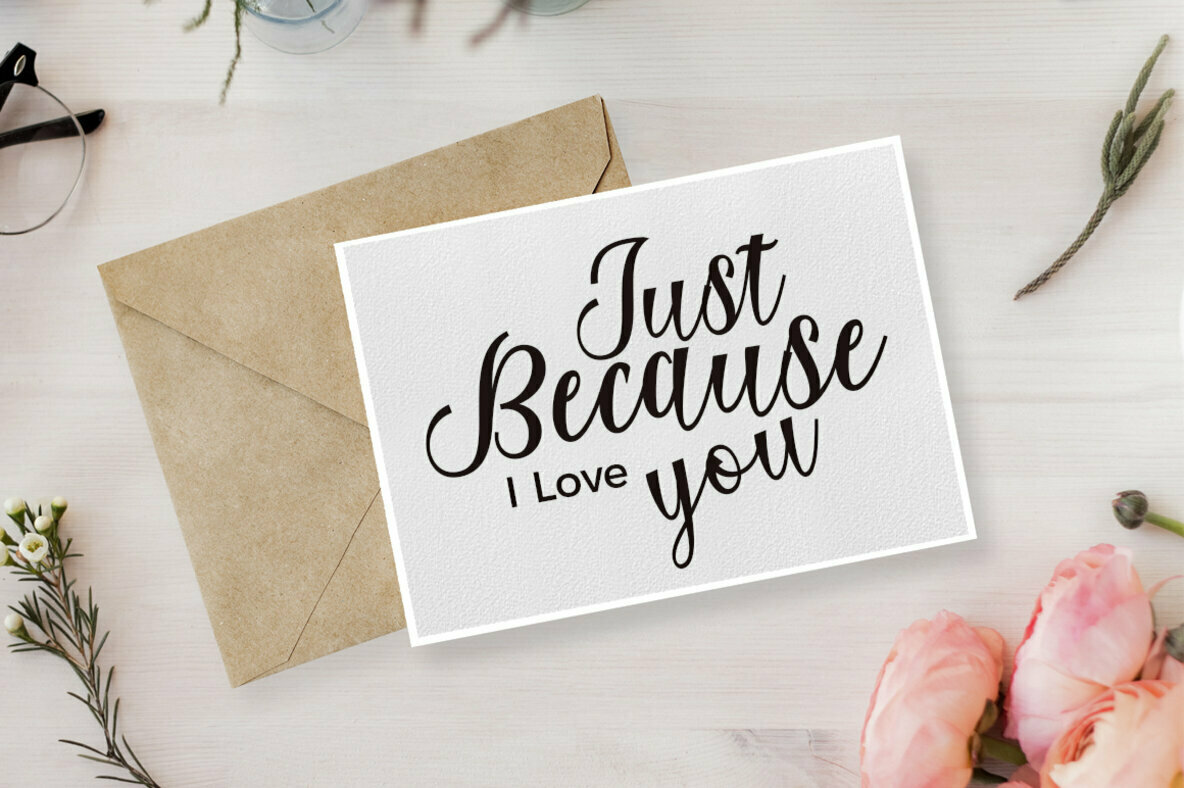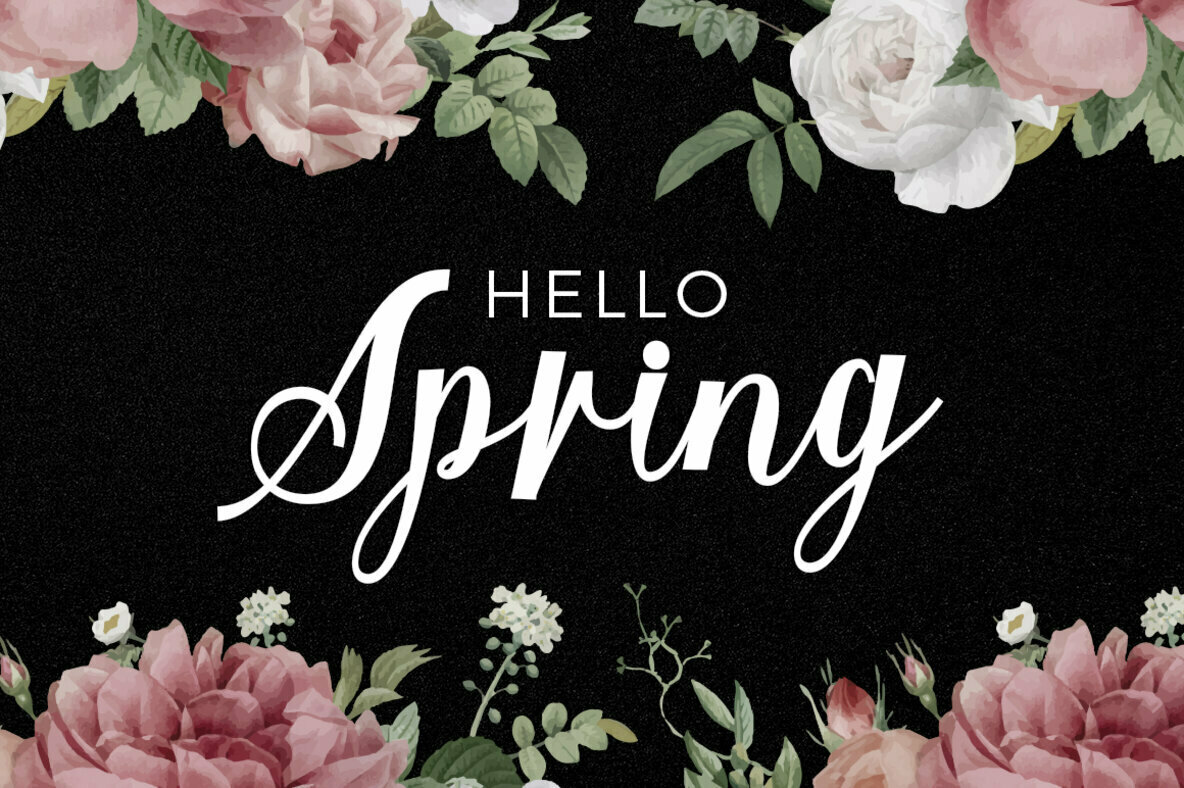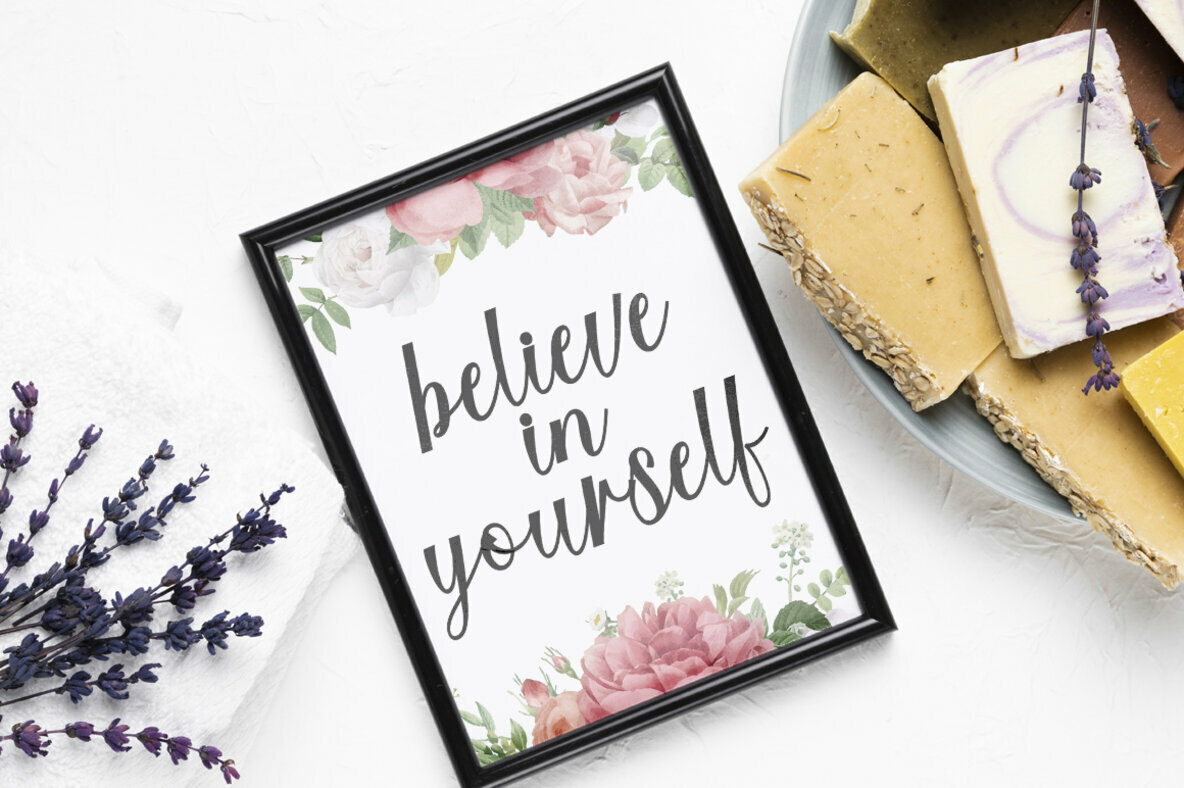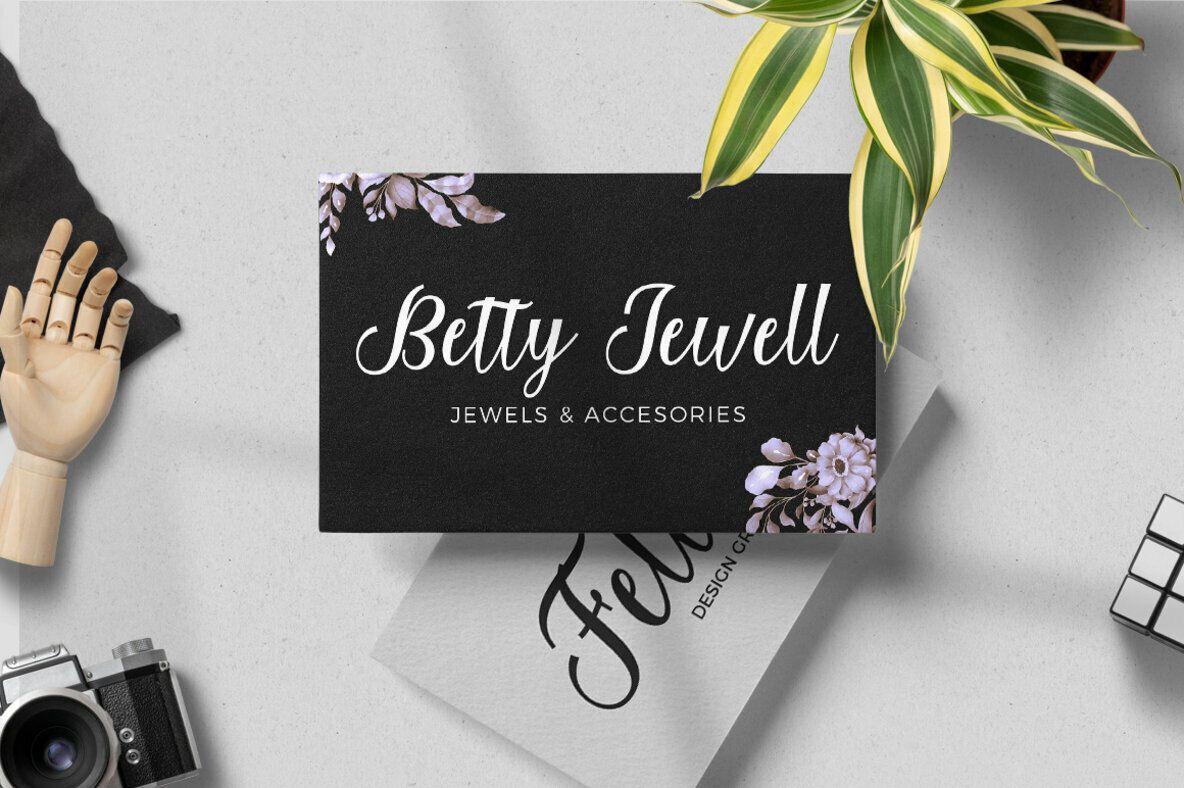
Federica Script Font
Federica Script
The art of calligraphy is given a delightful twist with Federica Script, a font that combines modern aesthetics with a charming dancing baseline. Its fine lines and sweet character make it a cherished choice for artisans and machine cutters alike. Whether you're crafting cards, designing mugs, or creating logos, this versatile font promises to enhance the beauty of your projects.Federica Script: Modern Calligraphy with a Playful Edge